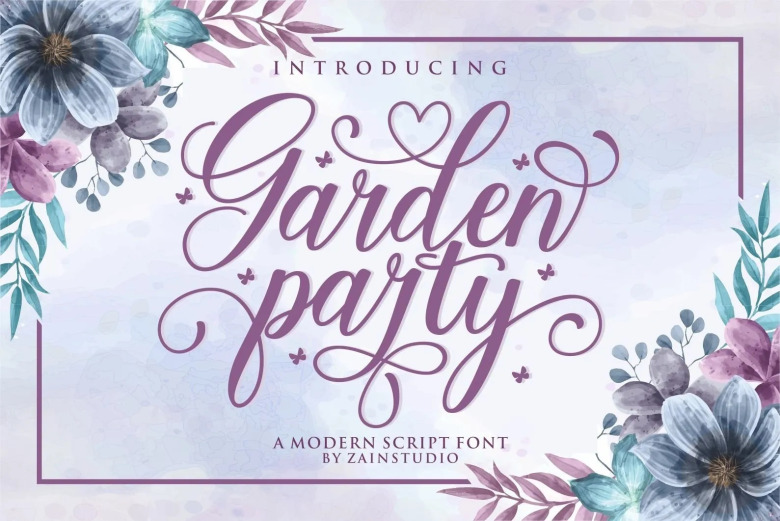
Garden Party Font
Garden Party is a lovely modern calligraphyfont. It gives luxury experience to it! This natural hand writing script is perfect for you that needs typeface for headline, logotype, apparel, wedding invitations, branding packaging, advertising and watermark.
This particular typeface includes all the characters in uppercase, lowercase, punctuations, symbols & numerals (also has stylistic set alternate, ligatures) and supports multilingual as well.
Garden Party Calligraphy Script Font